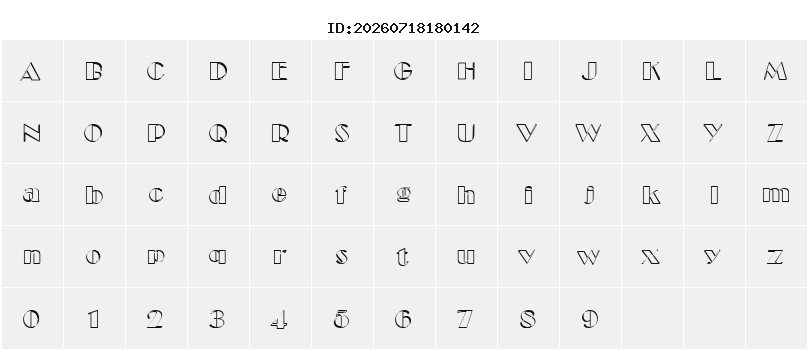
• Font Name: Cucchiarella
• Full Font Name: Cucchiarella Normal
About Cucchiarella.ttf
Cucchiarella.ttf is a modern, elegant sans-serif font designed for ultimate readability and visual harmony. Perfect for branding, headlines, web design, and print materials.